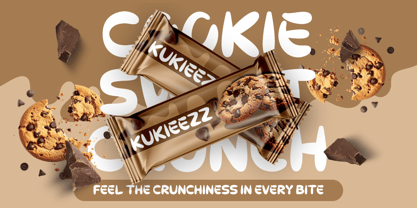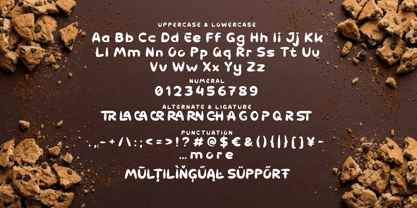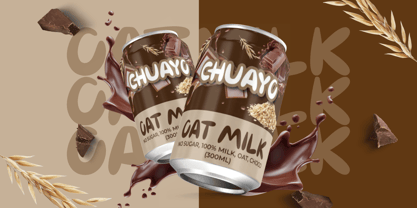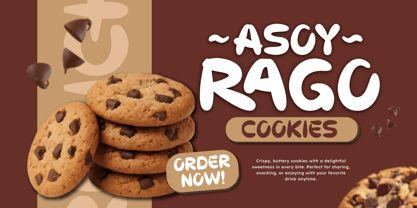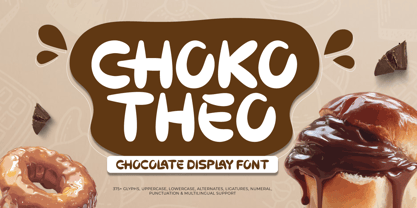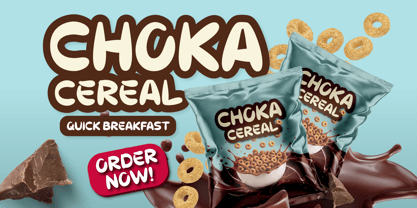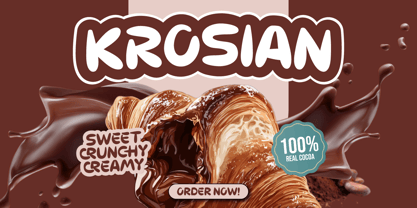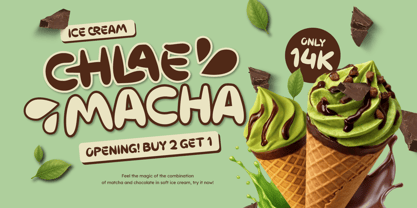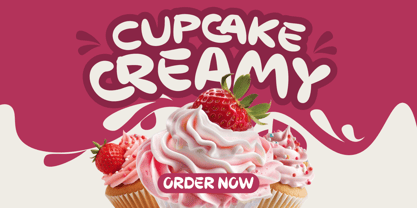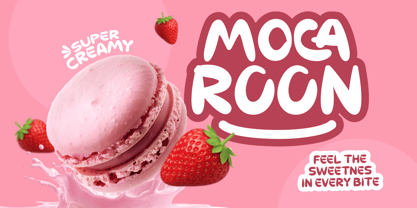
Choko Theo is a Choco Display Font typeface specifically designed to meet the visual needs of the F&B (Food & Beverage) industry. Featuring bold and rounded letterforms, this font delivers a friendly yet functional impression. Its visual characteristics represent the soft texture of sweet treats, making it an ideal choice for brand identities within the Snack & Confectionery sector.
This typography prioritizes high readability with solid character proportions to ensure product information is conveyed clearly across various sizes. Inspired by smooth chocolate textures, Choko Theo balances an engaging visual style with the technical requirements of modern packaging design. This allows designers to easily organize a firm information hierarchy on competitive product labels.
As a versatile Chocolate Bar Font, Choko Theo is highly effective when applied to Daily Break-time Snack packaging, bakery products, and digital promotional materials. Its ability to create a standout visual identity helps products appear more distinctive and easily recognizable to consumers. This font is a practical solution for brands looking to emphasize a professional and delicious impression in every culinary design project.
Choko Theo